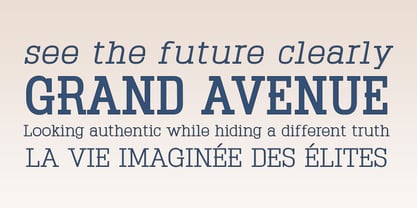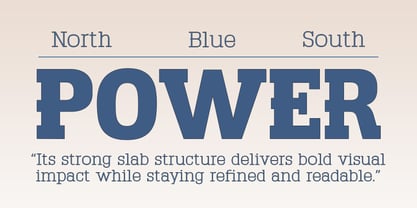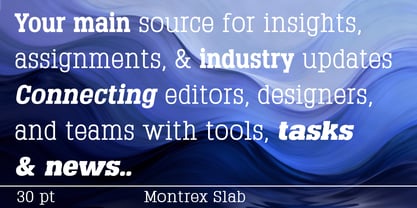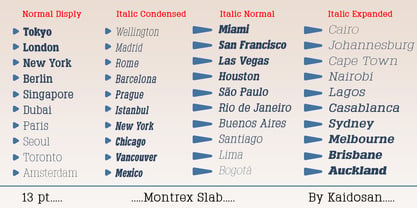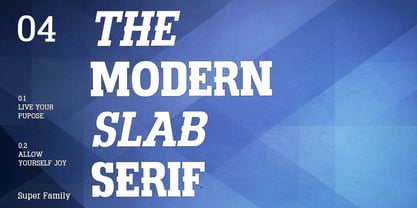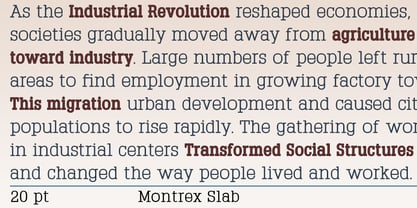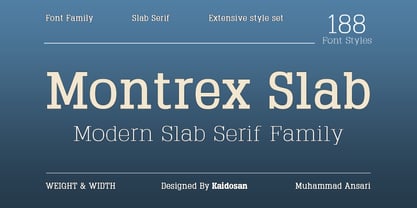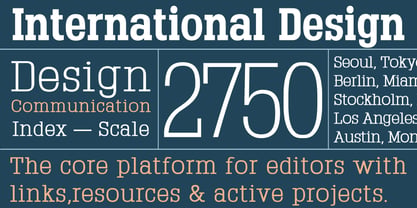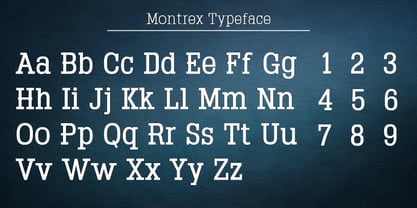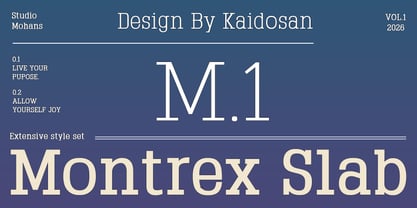
Montrex Slab
by Kaidosan
The Montrex Slab Font Family was designed by Muhammad Ansari and published by Kaidosan. Montrex Slab contains 188 styles and family package options. More about this family
Montrex Slab is a contemporary slab serif typeface built with a confident, structured, and highly versatile personality. Its strong serif construction is balanced by clean proportions and refined detailing, giving the design a solid presence without feeling heavy. The letterforms are sturdy yet controlled, offering a harmonious blend of bold character and professional clarity. Designed to perform across a wide range of visual needs, Montrex Slab maintains excellent readability while still delivering distinctive impact. The carefully engineered shapes allow it to feel powerful in large sizes and dependable in text settings. With an extensive variable system covering Weight, Width, and Italic, Montrex Slab spans an impressive 188 styles. From narrow, space-saving widths to wide, commanding expansions — and fro delicate light weights to strong, authoritative heavies — every style is crafted to work seamlessly together. This versatility makes Montrex Slab an excellent choice for branding, editorial headlines, packaging, posters, and corporate design systems where a modern yet grounded slab serif voice is essential. It delivers strength, clarity, and flexibility in one cohesive superfamily.
Designers: Muhammad Ansari
Foundry: Kaidosan